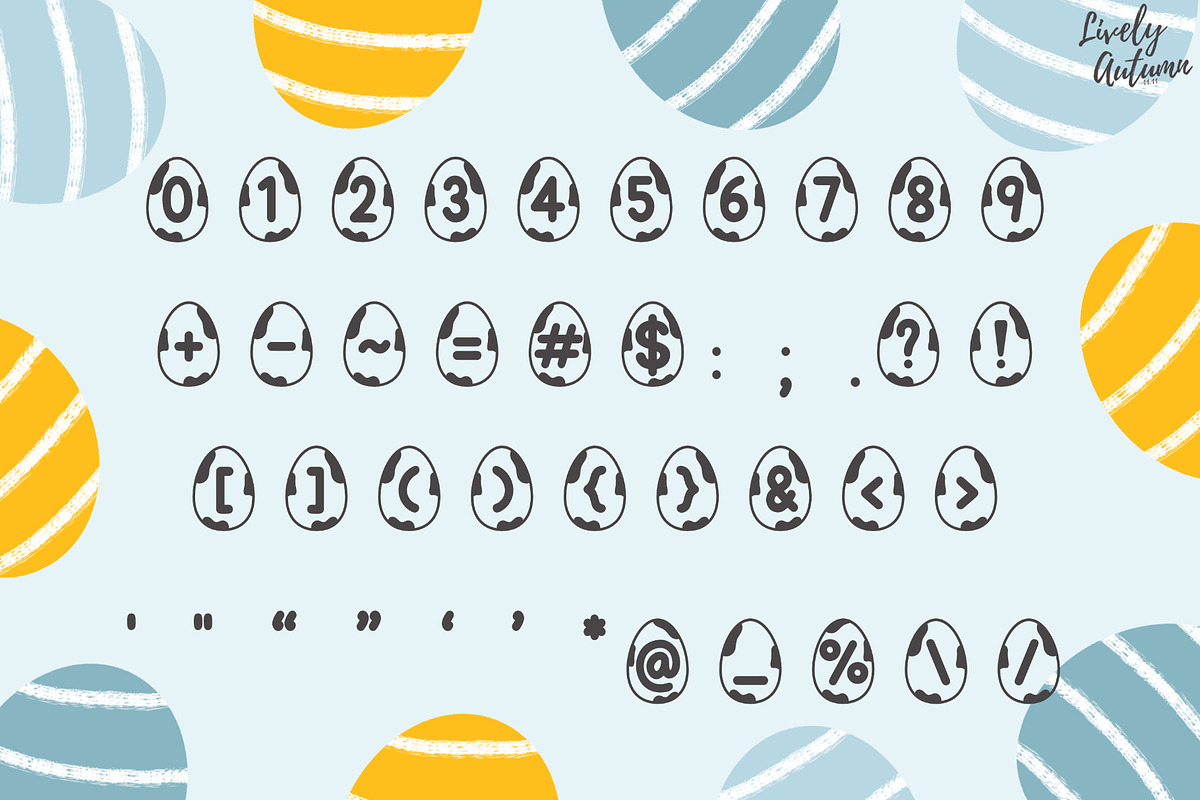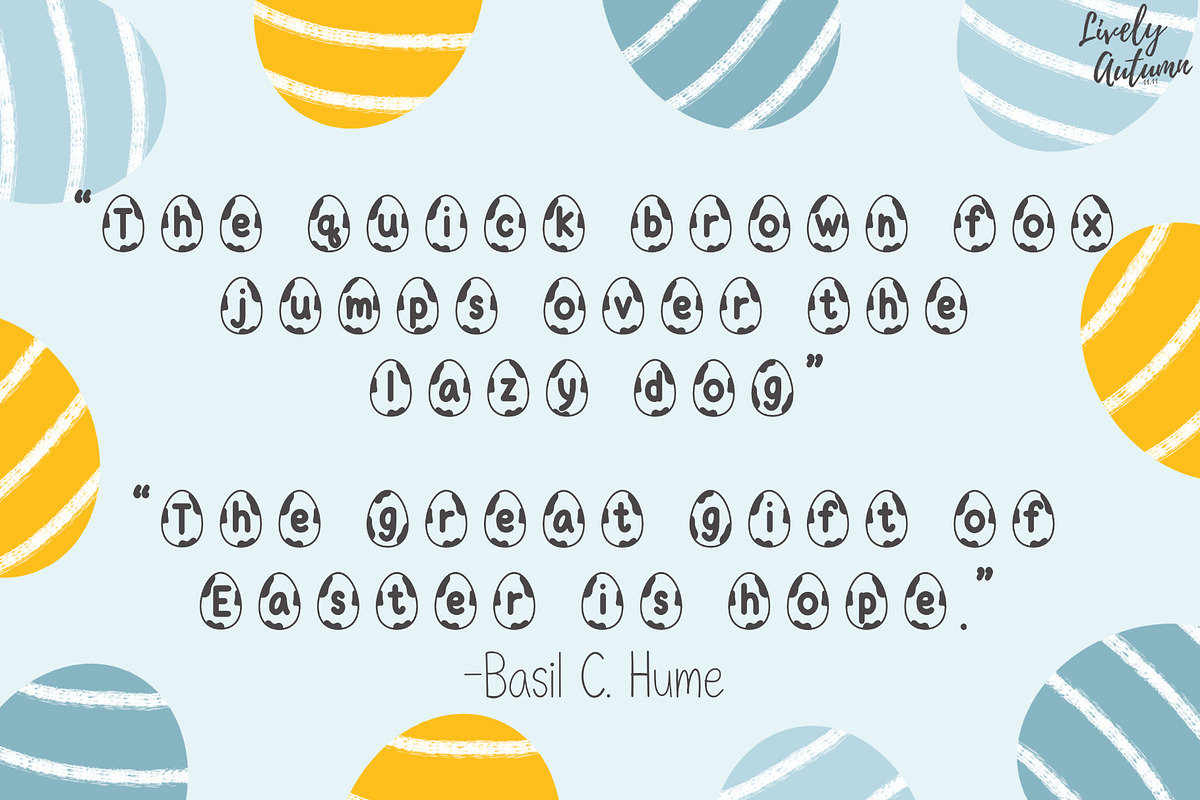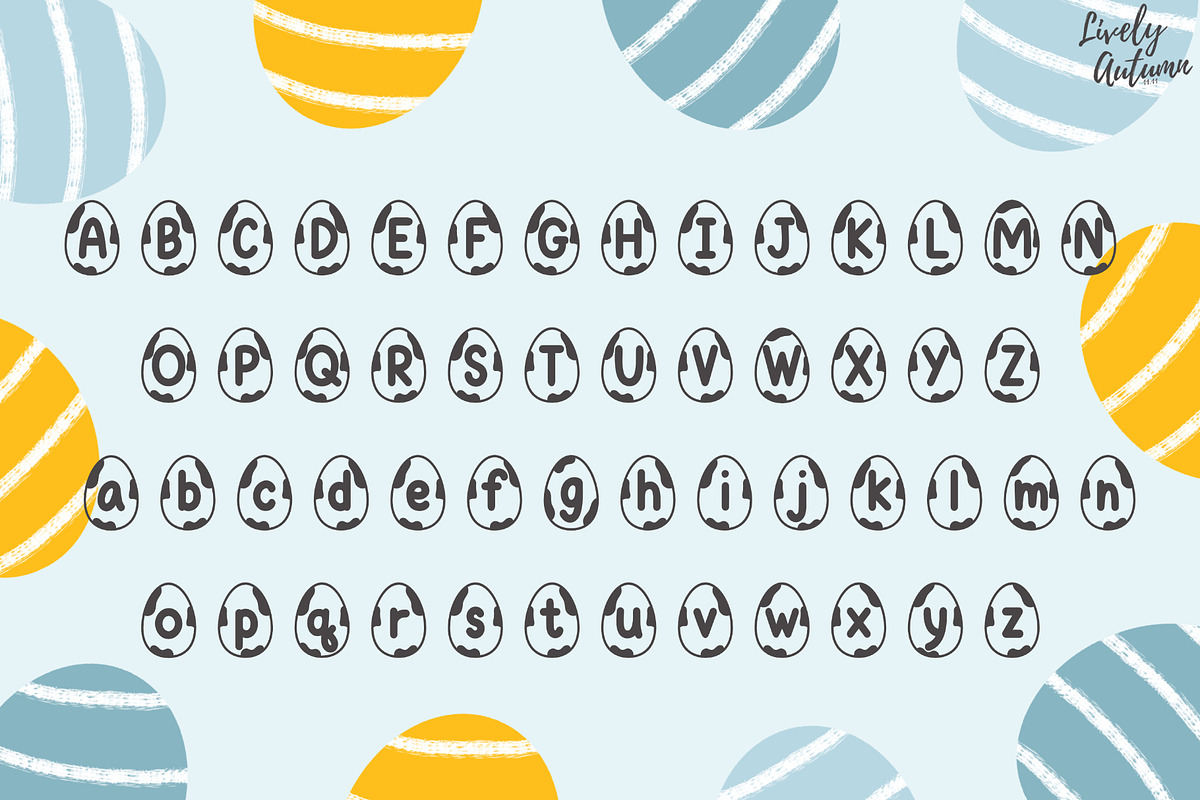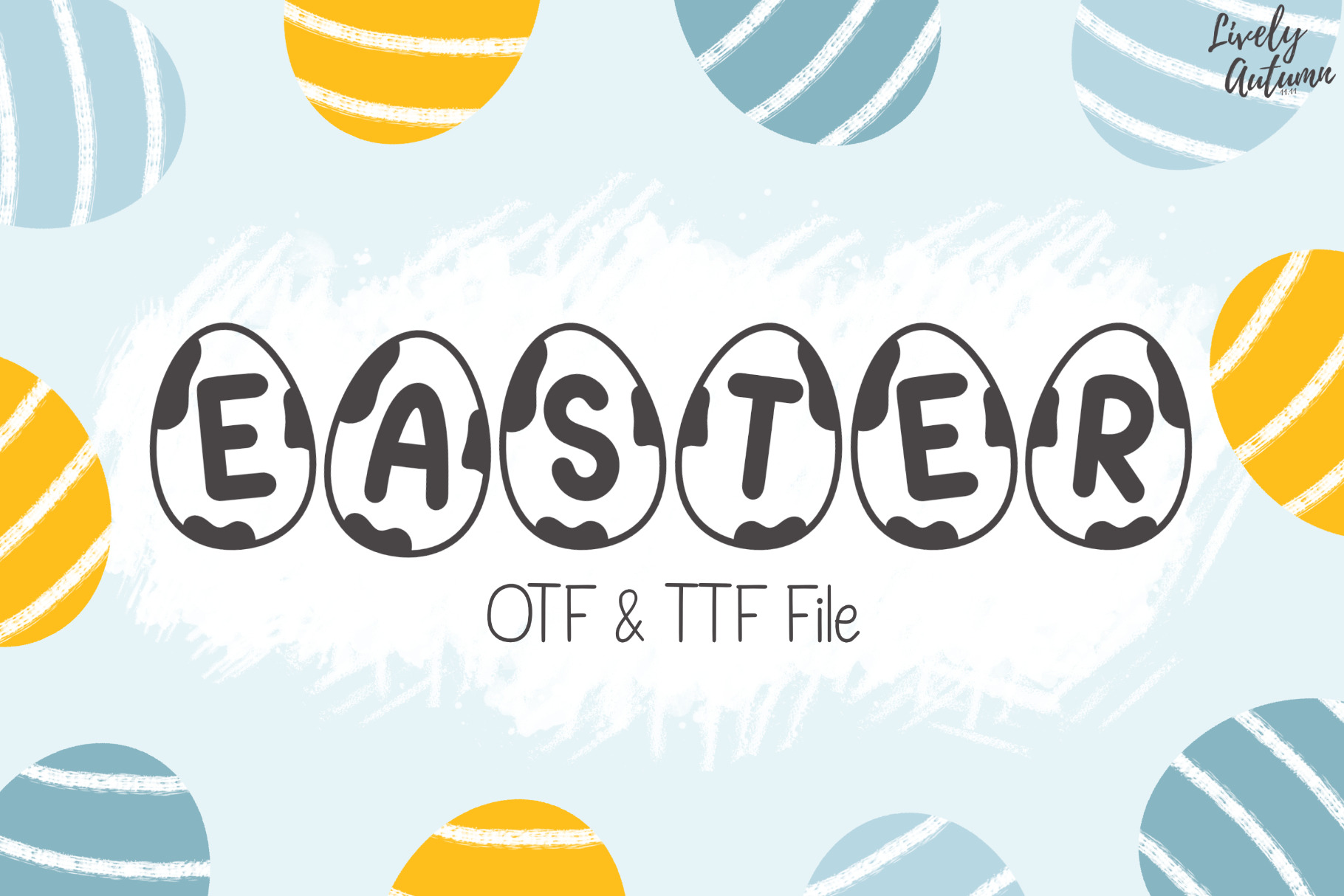
Easter egg Font
Easter Egg is a fancy decorative font that has a letter on each egg. This font is perfect for your fun Easter projects such as invites, stickers, posters, mugs, and more!
- Font includes: uppercase, lowercase, numbers, and symbols